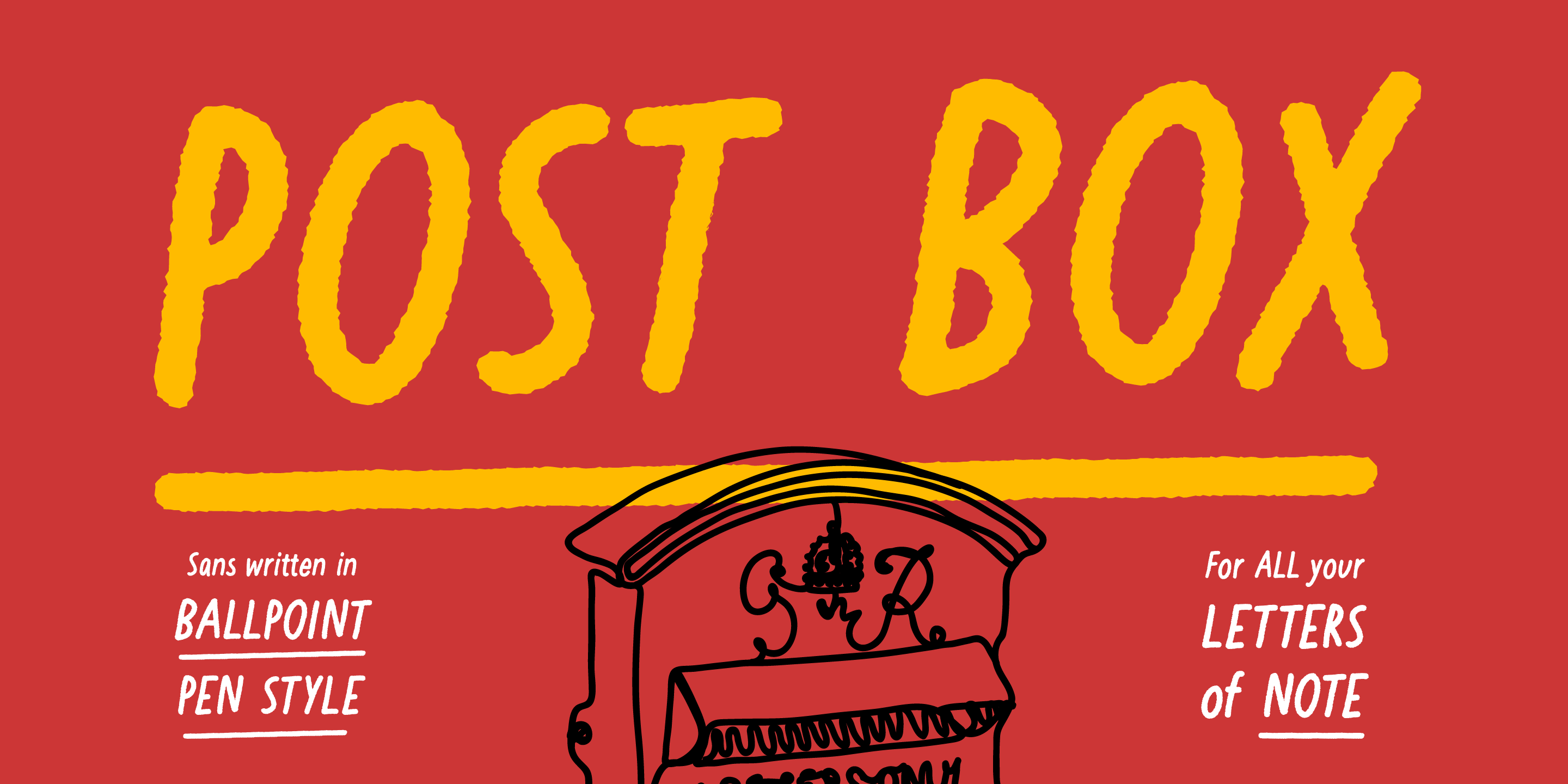
Post Box Font is a charming and often unique typeface, perfect for designs that aim to convey a sense of nostalgia, handcrafted authenticity, or a vintage, utilitarian aesthetic. Its design, often inspired by classic postal markings, rubber stamps, or hand-painted signs, makes it an excellent choice for retro branding, artisanal product packaging, event invitations with a vintage theme, and café or diner signage. Imagine it gracing a boutique's storefront, adding a quaint charm to handmade goods labels, or providing an authentic feel to local market promotions. This font is also superb for social media graphics seeking a distinctive look, scrapbooking projects, and any project where a personal, warm, and visually engaging identity is key. It doesn't just display text; it stamps it with character and a touch of bygone days.
What makes Post Box Font so exciting is its immediate ability to evoke a sense of history, genuine craftsmanship, and a delightful, unpolished appeal. It perfectly captures the charming imperfections and unique character of vintage typography, making any message feel more personal and deeply rooted. This distinctive personality makes it a fantastic choice for designers looking to infuse their projects with a sense of authenticity, warmth, and a memorable atmosphere. It’s a font that speaks with a friendly, evocative voice, making it ideal for brands and content creators who want to connect with their audience on a more personal and nostalgic level. Its endearing appeal can make any design feel more engaging and truly unique.
The Post Box Font family, given its often artistic and specialized nature, might not feature the extensive range of weights found in more traditional typefaces. However, it typically offers different styles or complementary elements that enhance its unique aesthetic and provide creative flexibility. You might find variations such as:
Post Box Regular (the primary distinctive style)
Post Box Rough/Distressed (if designed with a weathered or aged appearance)
Post Box Stamped (for a textured, ink-bleed effect)
Post Box Outline (if designed with a contour)
Post Box Dingbats/Ornaments (often included as postal-themed symbols or stamps)
These variations empower designers to maintain a consistent thematic aesthetic while adding depth and visual punch to their compositions. The availability of Post Box Font Free Download offers an excellent opportunity to explore its unique charm and expressive potential for your personal design ventures.